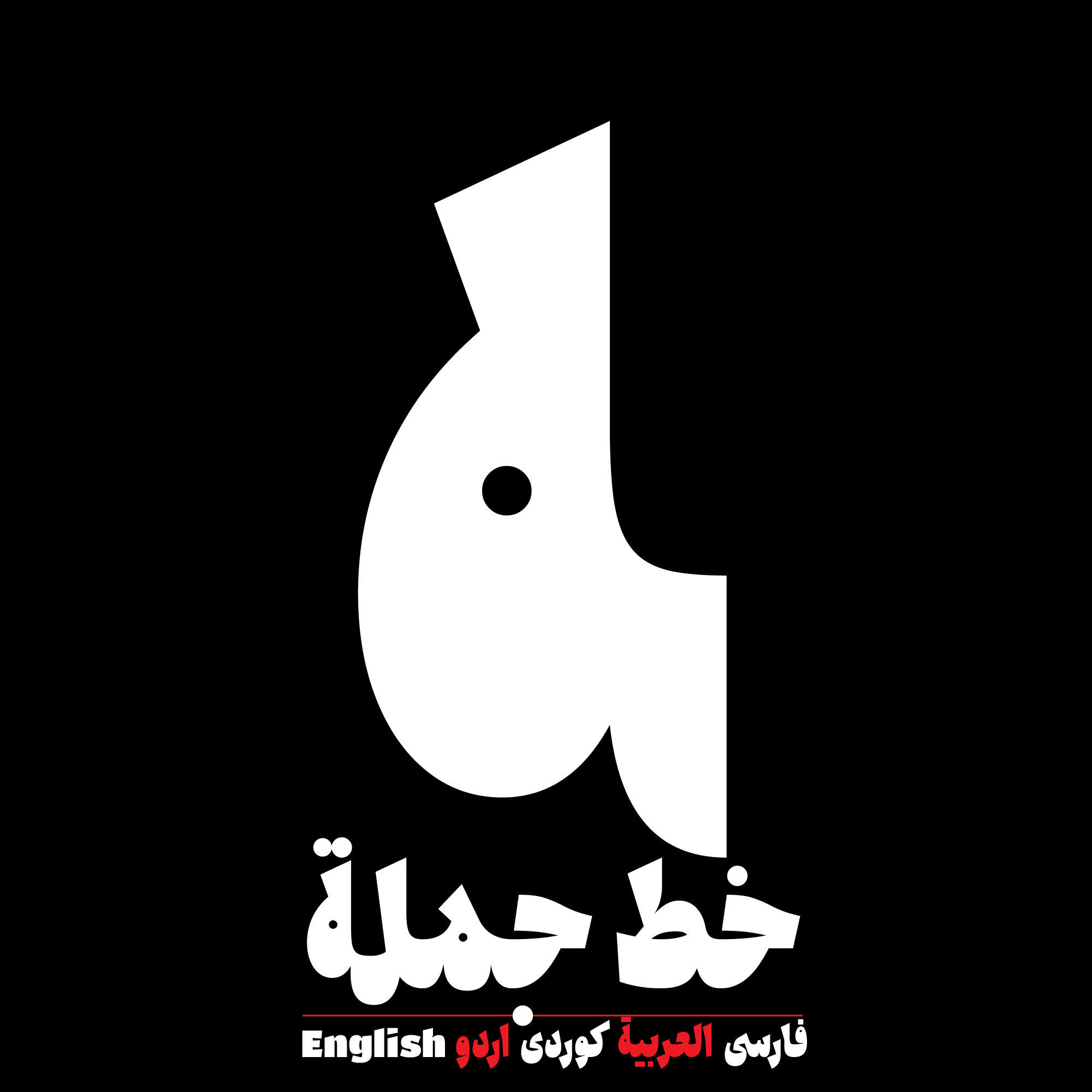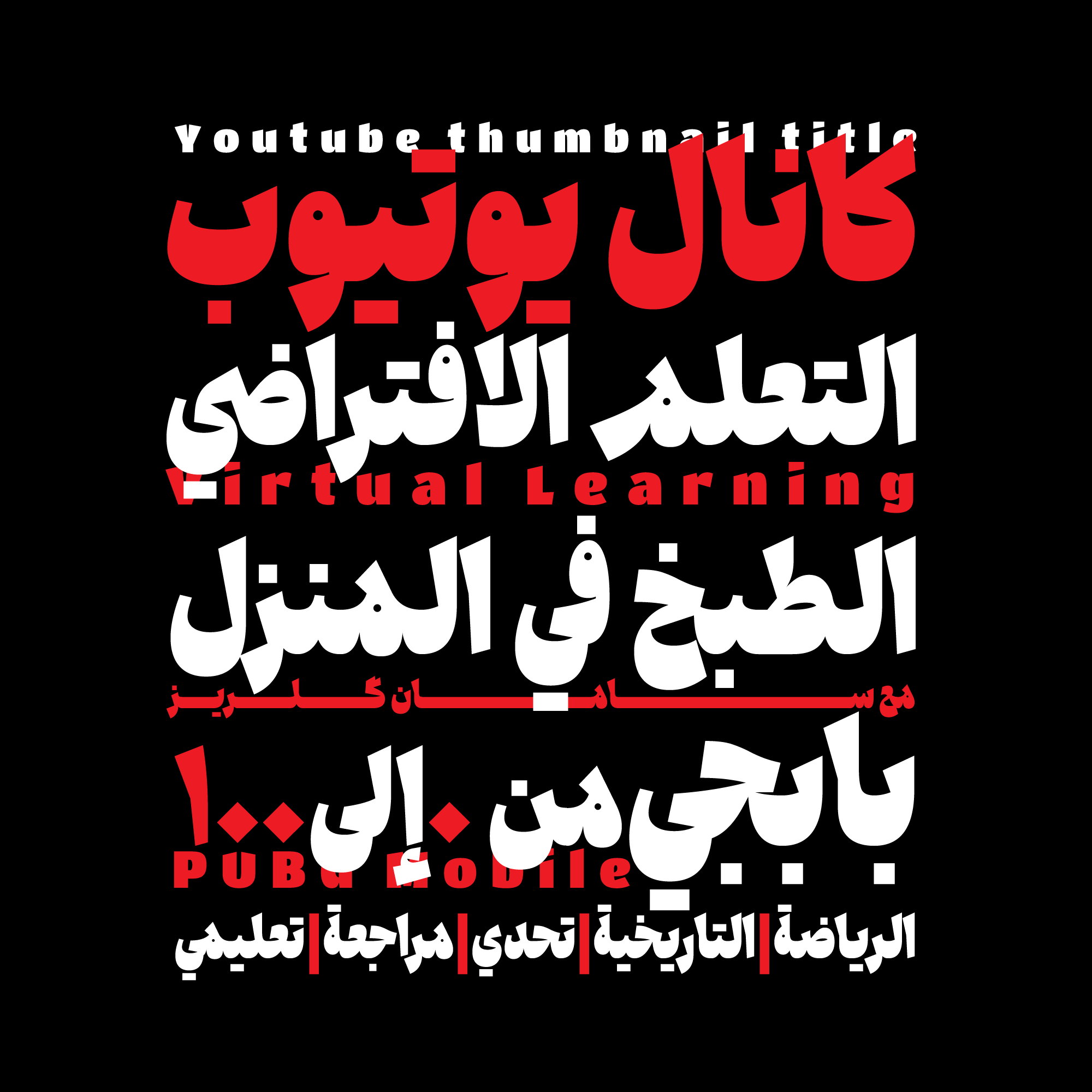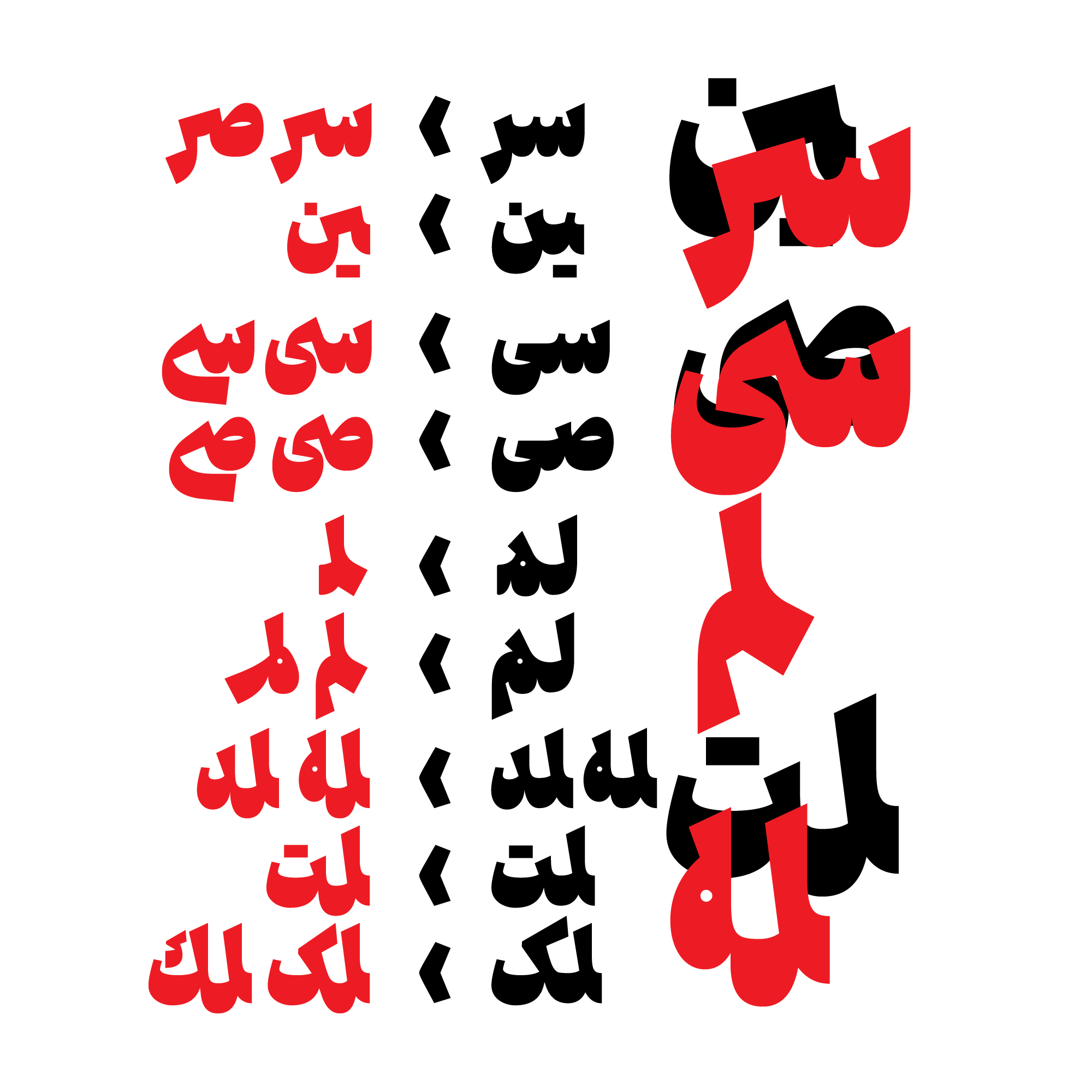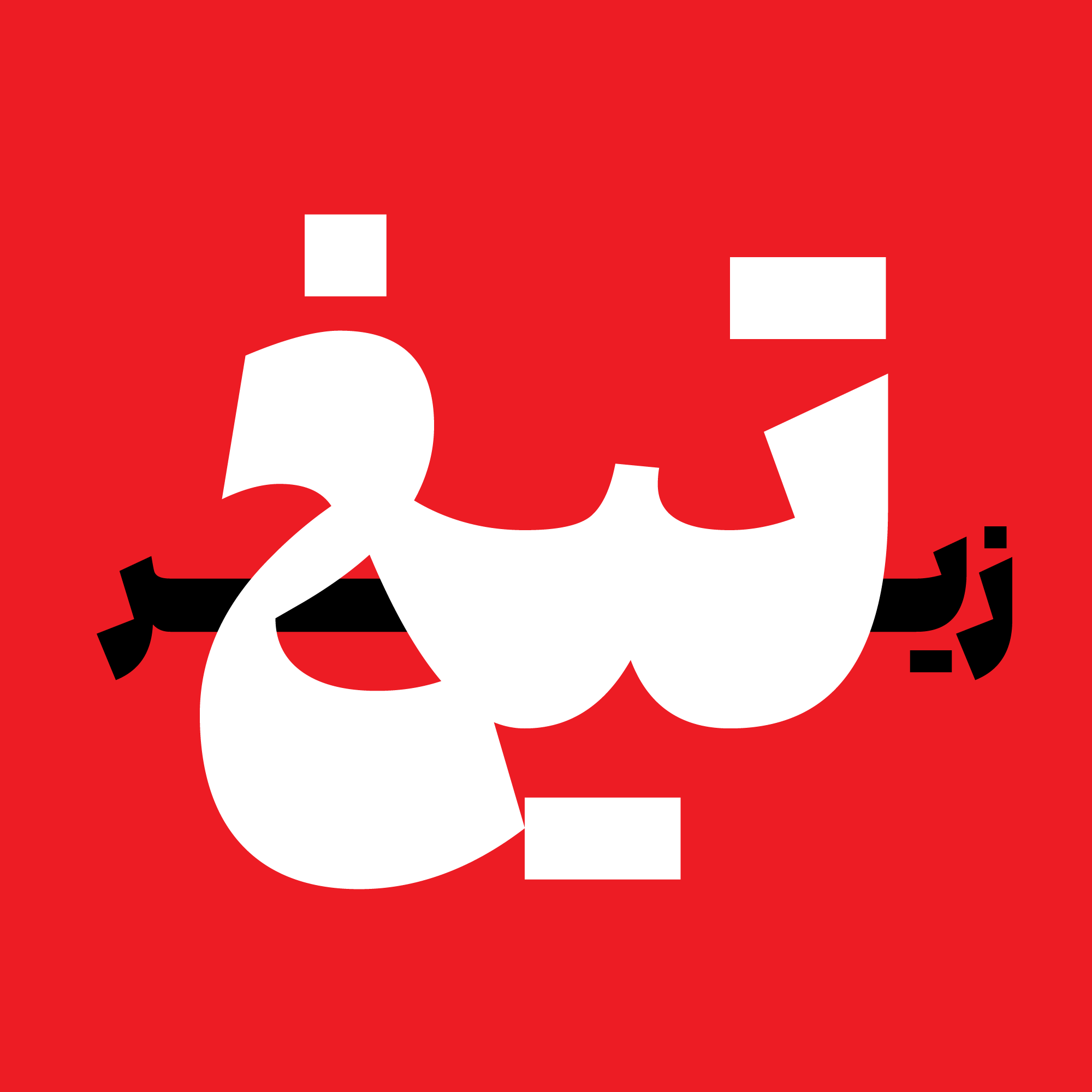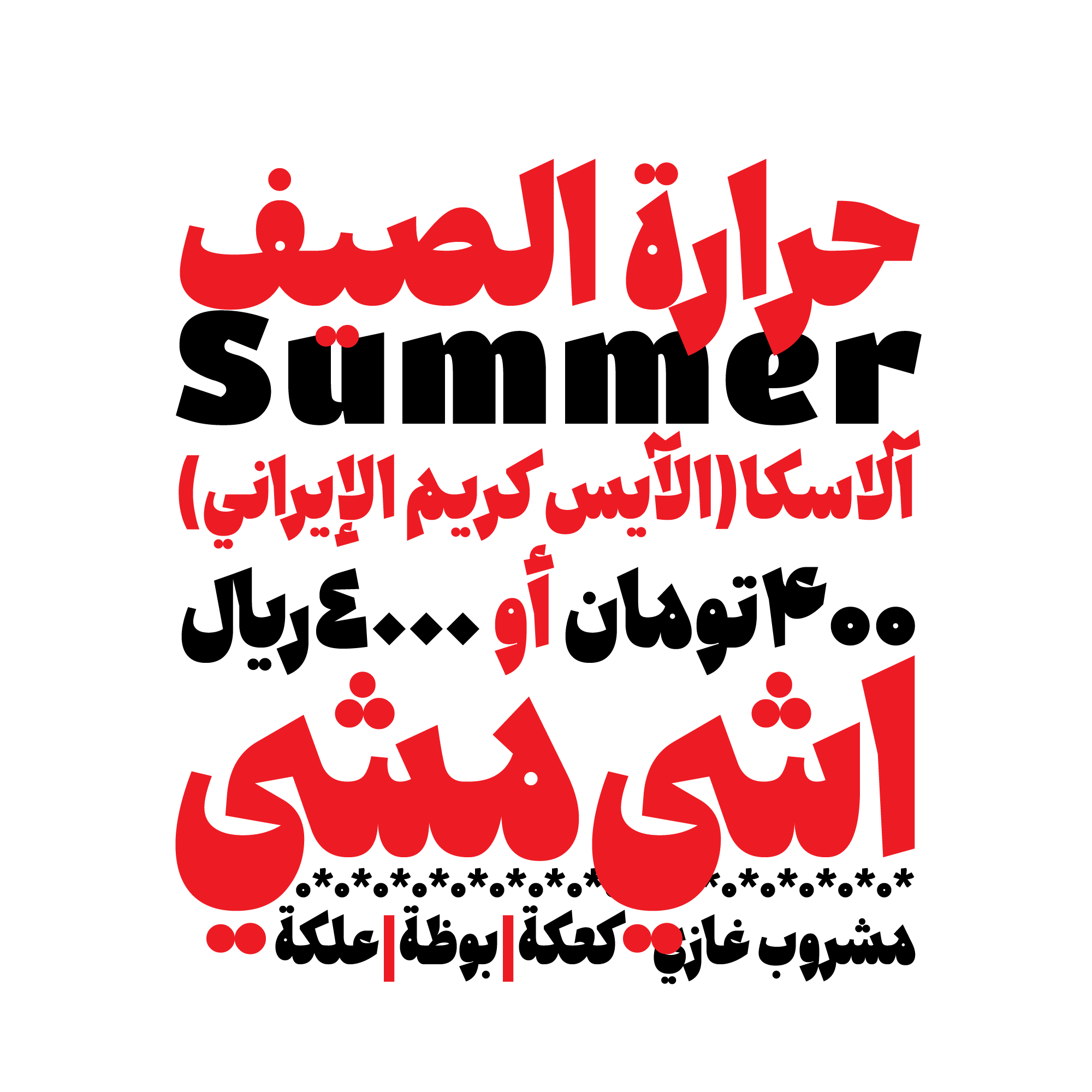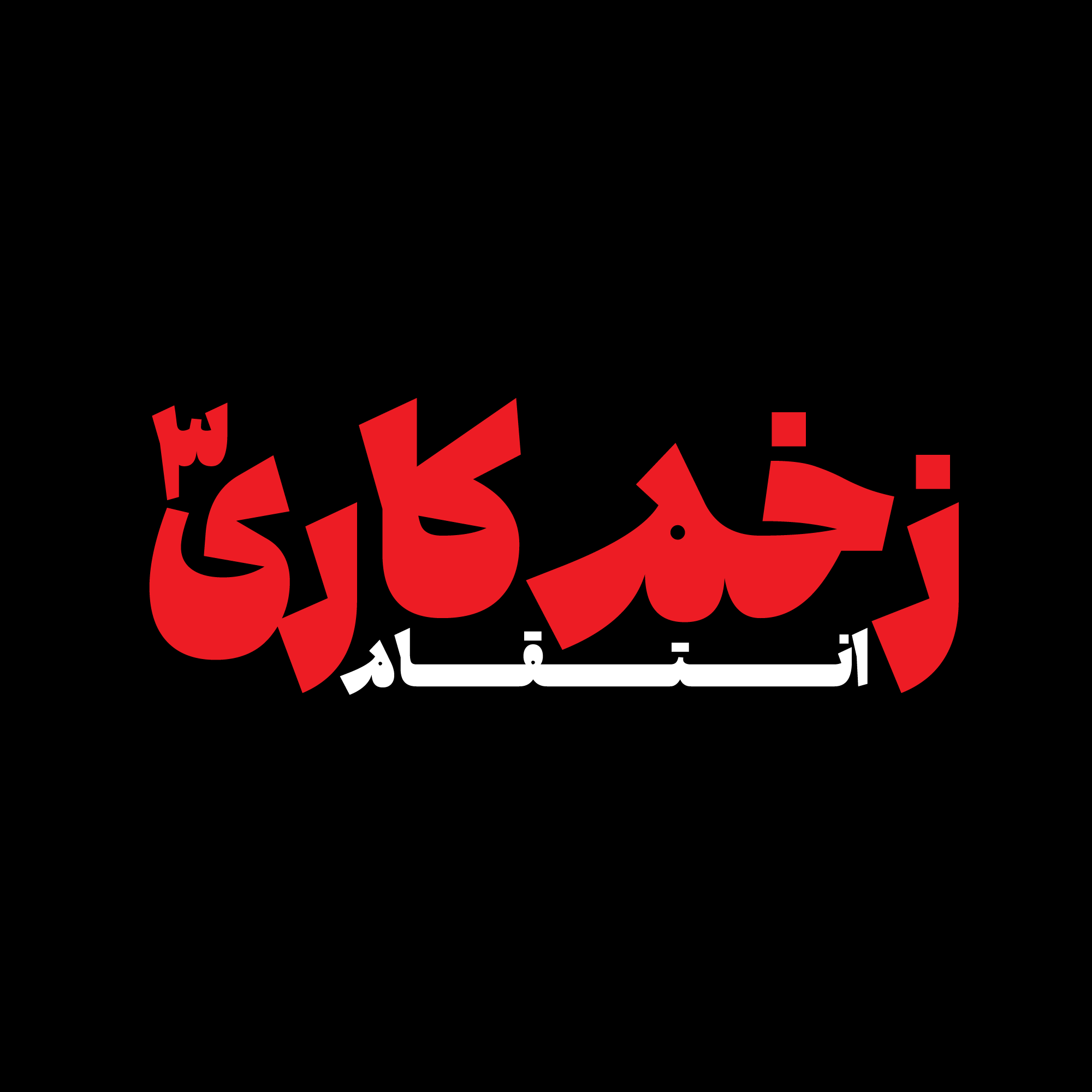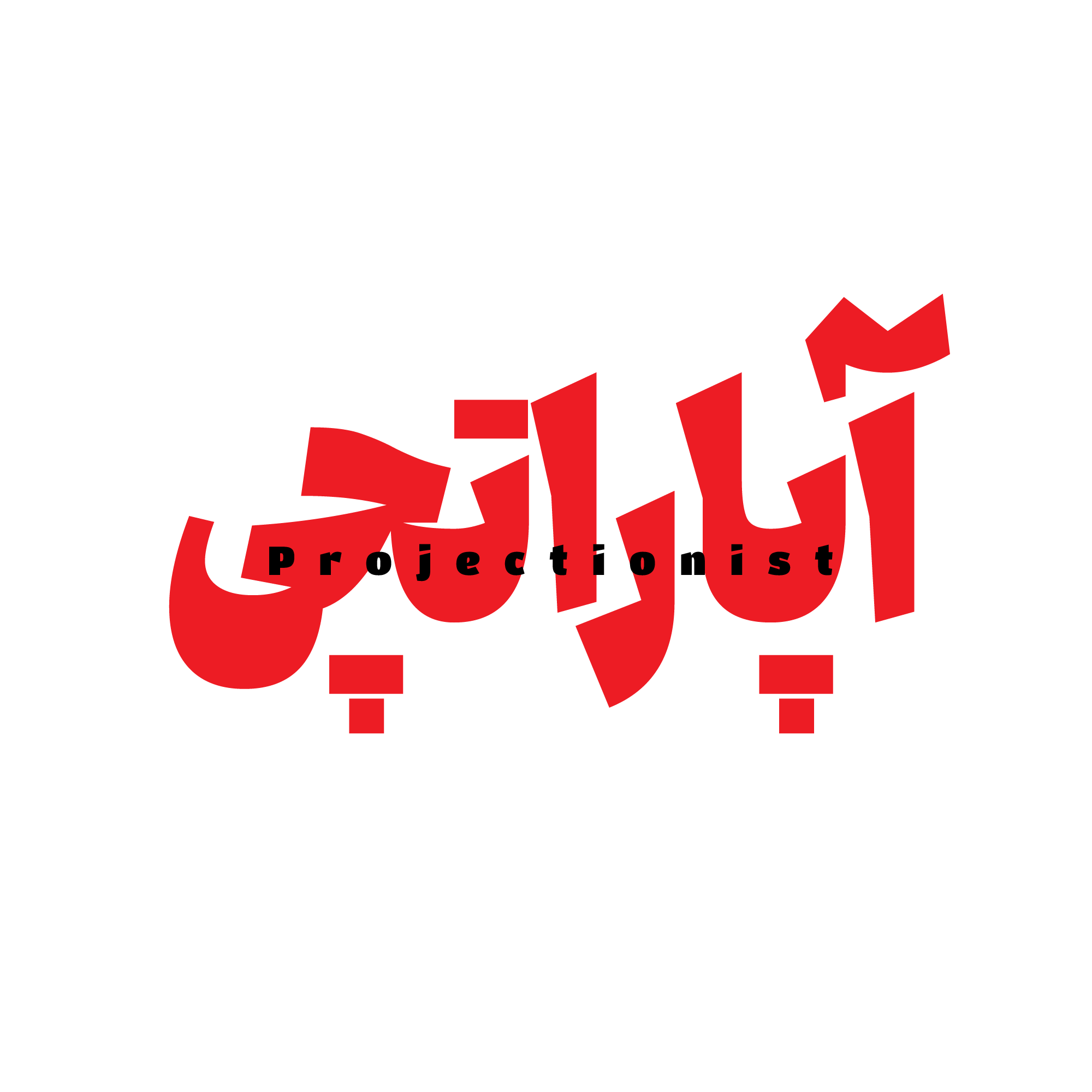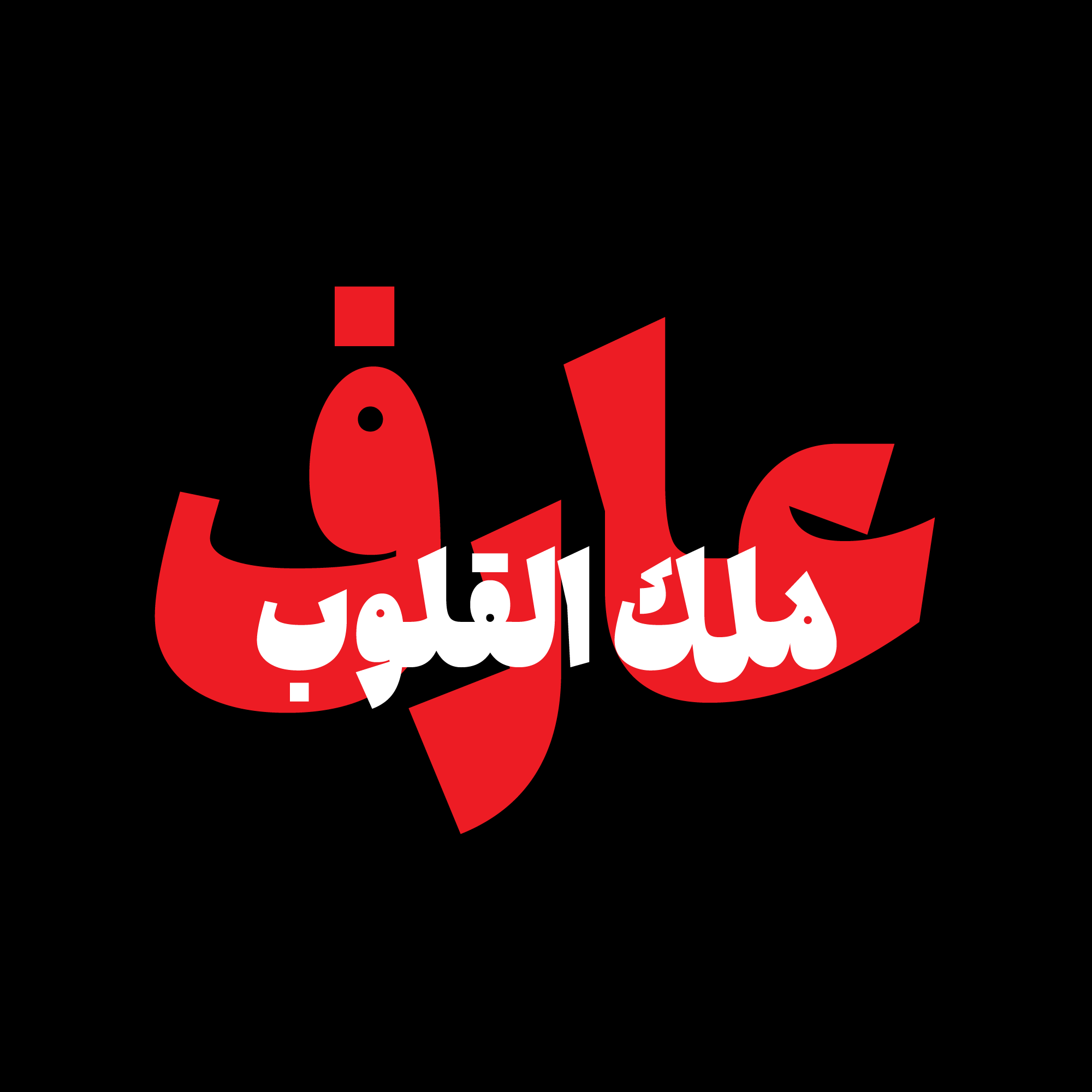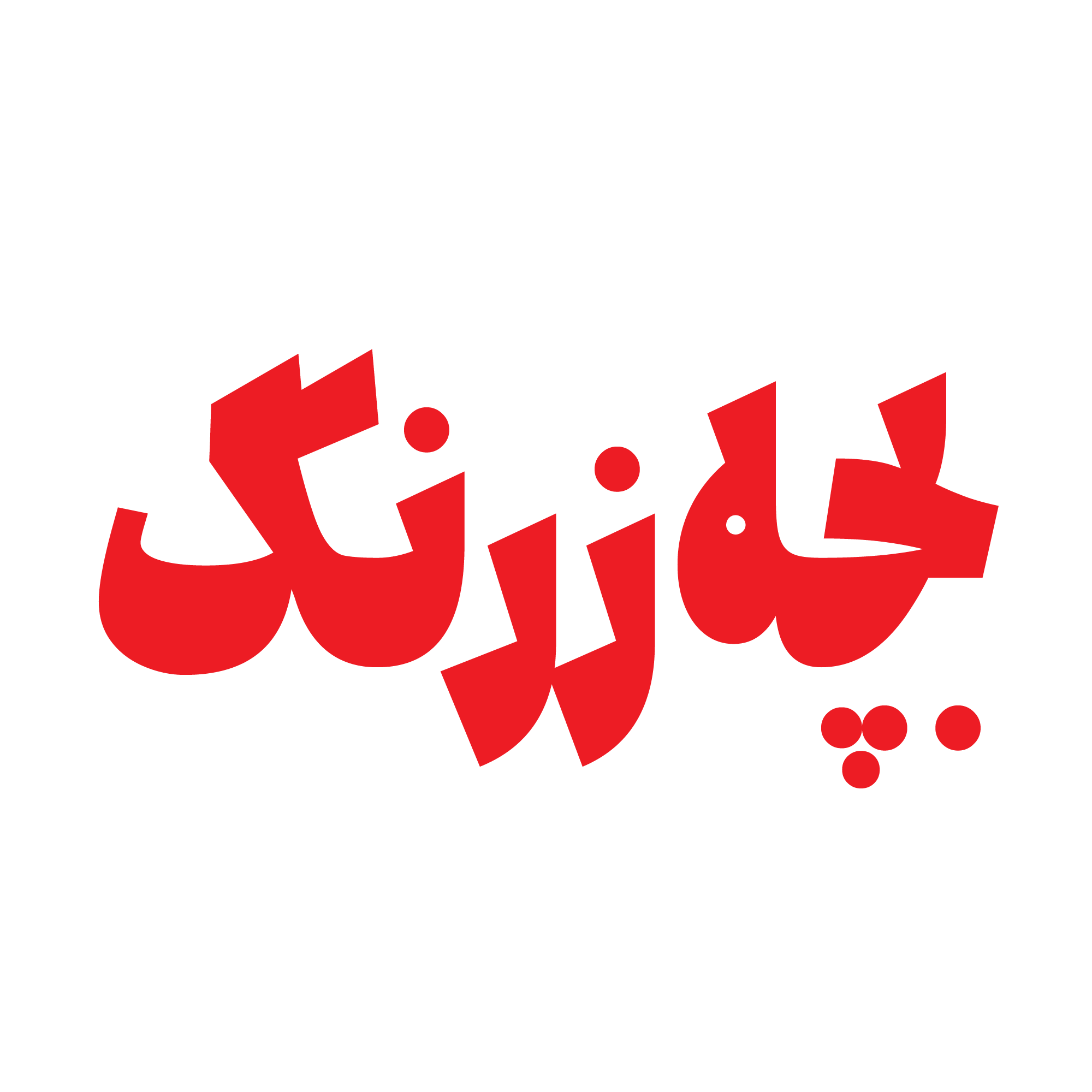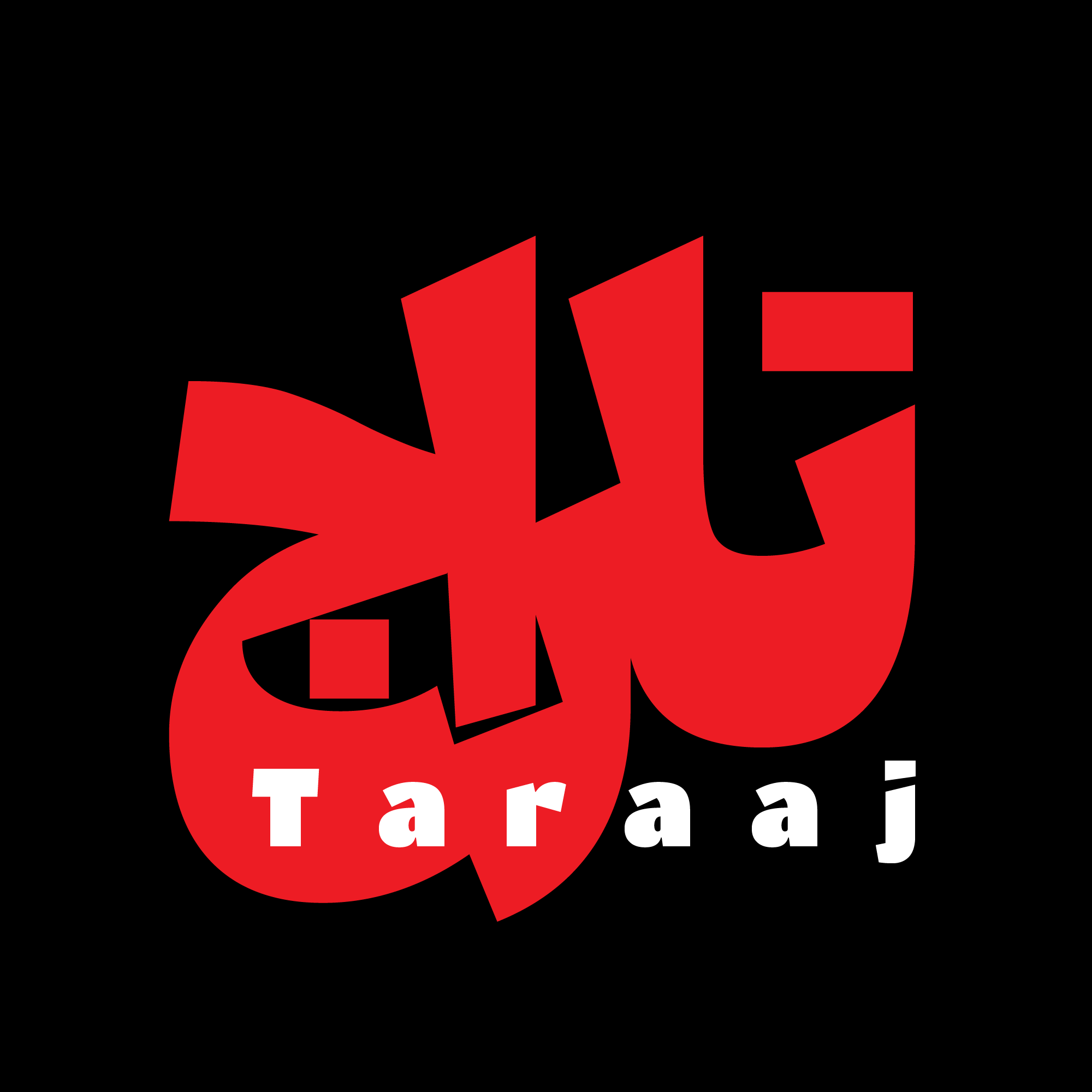
Jomleh
From idea to execution
The idea for this typeface was presented in Master Naser Khadem's 2024 type design class and was completed under his supervision.
The first letter was «ـه»whose form was divided into two sharp and curved parts, and the same idea was implemented for all the letters.
In designing it, I tried to design the letters as differently as possible to have an attractive, semi-fantasy, yet readable headline font.
Its uses include use in movie and show posters, advertising headlines, and social media content production.
Alternatives
There are numerous alternative letters and two- and three-letter combinations in Jomleh font that can be used using the font guide.
More combinations will be added in future update.
Support for Arabic, English, Urdu and Kurdish
The Jamala font is designed for Persian and Arabic and also supports Urdu, Kurdish and English.
The open source TitanOne font is used for its English font.
Dots
In the Jomleh font, dots are available in two shapes: square and circle.